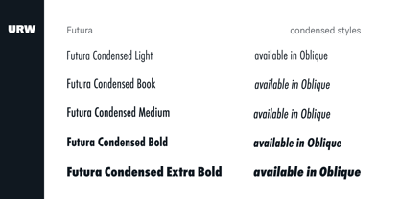
Futura URW Font
Futura URW is the URW Type Foundry edition of the iconic geometric sans-serif Futura typeface, originally designed by Paul Renner in 1927. This version offers excellent readability and a clean modernist aesthetic. Download Futura URW font for your design projects.